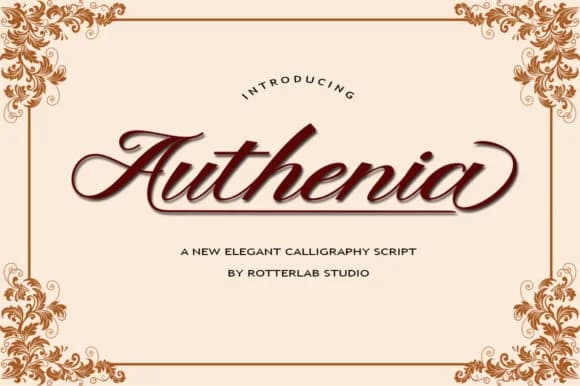
Authenia Script Font by rotterlabstudio is a vintage-inspired script typeface that balances refined elegance with excellent readability. This handwritten design combines classic charm with modern adaptability, making it an ideal choice for sophisticated projects that call for character and polish without sacrificing legibility.
The font's carefully crafted letterforms shine across wedding invitation suites, luxury skincare packaging, fine dining menu design, and custom book covers. Fashion brands turn to Authenia for distinctive product labels and brand logos that require timeless refinement, while stationery designers love its consistent quality and graceful flow across monogrammed stationery sets. The script maintains impressive clarity across point sizes, ensuring legibility whether you're designing for digital screens or print materials, all while preserving that organic, hand-drawn aesthetic that makes it genuinely engaging. Its balanced structure works equally well for both formal applications and editorial design contexts.
Whether you're creating curated packaging for boutique cosmetics, designing event signage with vintage character, developing brand identities for upscale retailers, or typesetting romantic fiction covers, Authenia brings personality and sophistication to every application. The font works seamlessly across both commercial and personal creative projects, adding a touch of handwritten charm wherever needed. Get Authenia Script Font on Creative Fabrica and explore the range of design possibilities this elegant script offers.
Authenia Script Font is a script font that shines as a display or heading face. Pair it with a clean sans-serif or serif font for body text β the contrast creates a clear hierarchy while the two styles stay balanced and easy to read.